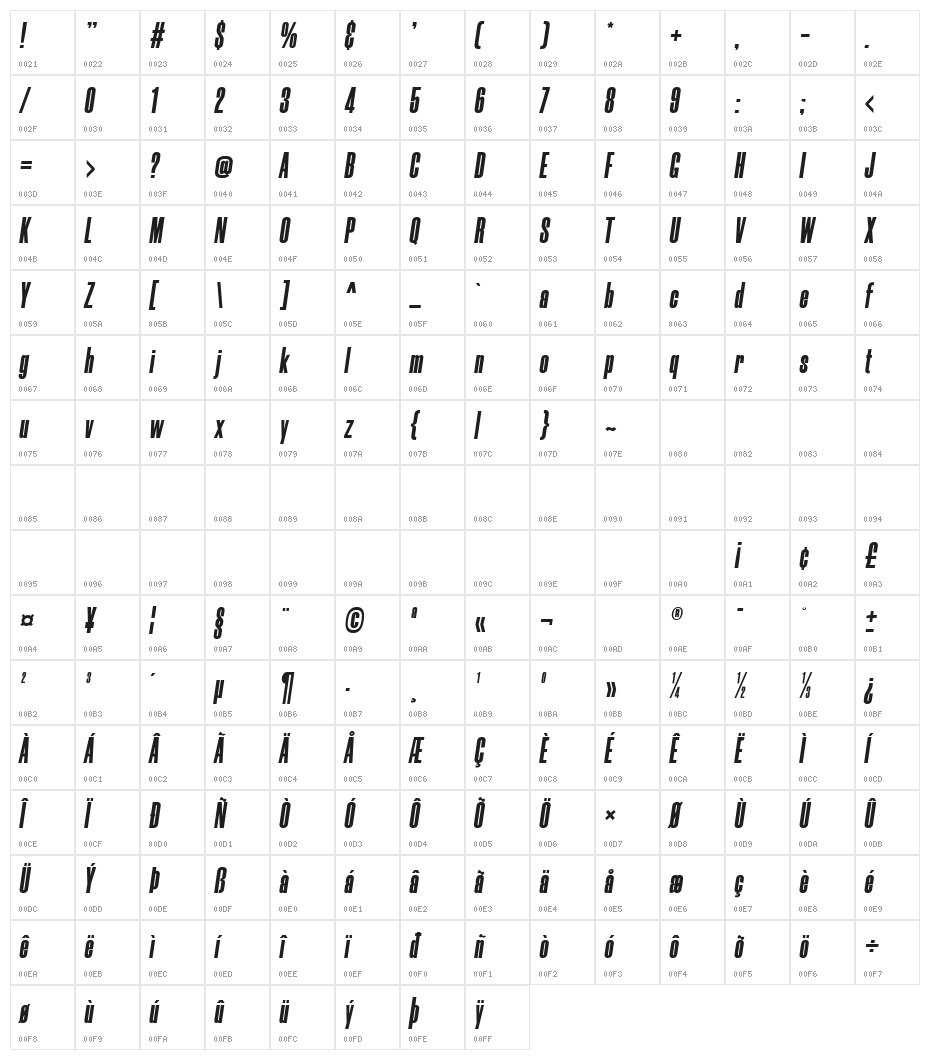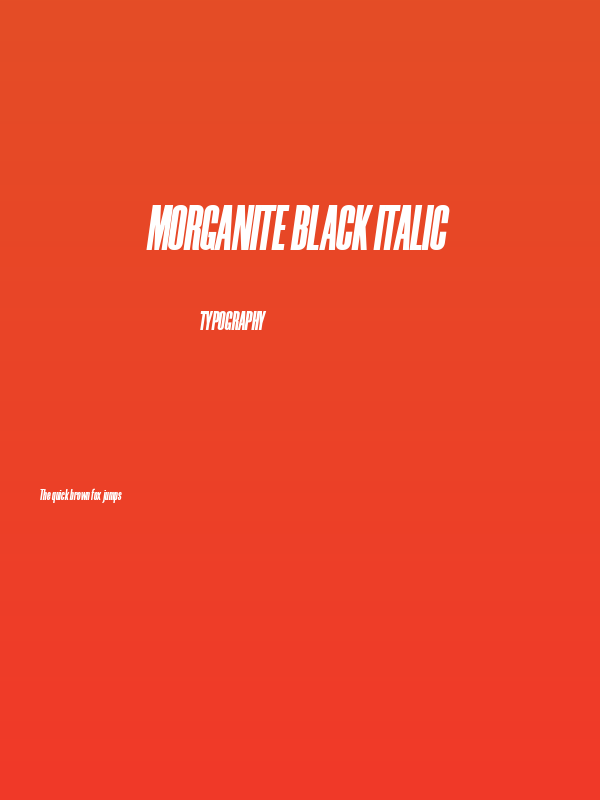
Morganite Black Italic Font
Morganite Black Italic Description
This font features a bold and dynamic style with a pronounced italic slant, giving it a sense of movement and energy. The characters are tightly spaced, enhancing its compact and impactful appearance. The strokes are thick and consistent, providing a strong visual presence. Its modern design is suitable for making statements and grabbing attention. The uppercase and lowercase letters maintain a uniform weight, contributing to its cohesive look. The numerals and special characters are designed to match the boldness and style of the alphabet, ensuring a harmonious overall appearance.
Proposed ProjectsIdeal for headlines, posters, branding, and advertising where a strong and energetic presence is desired.